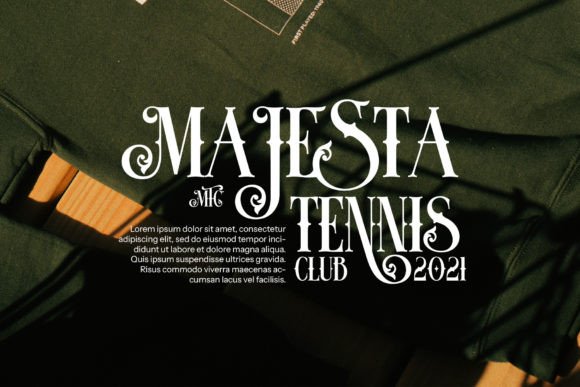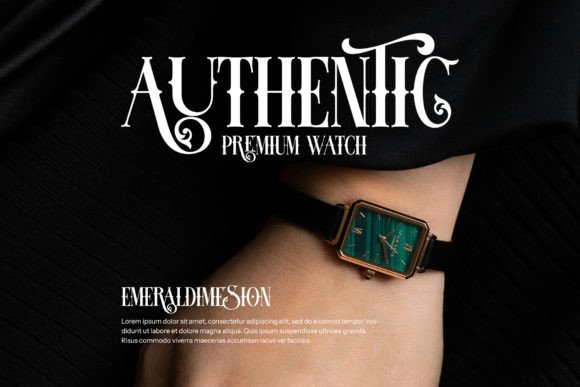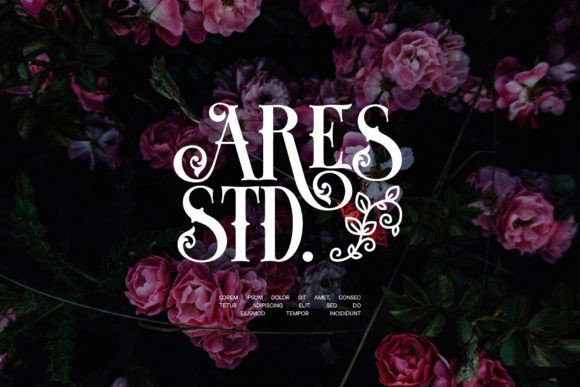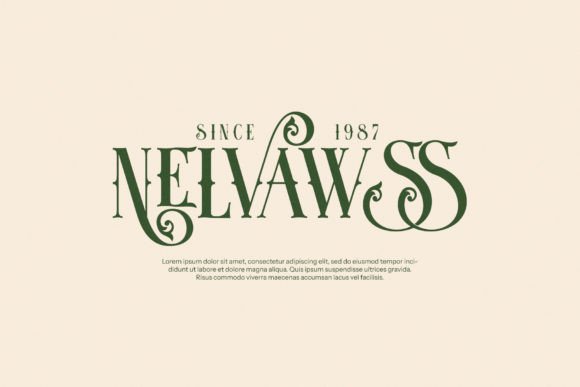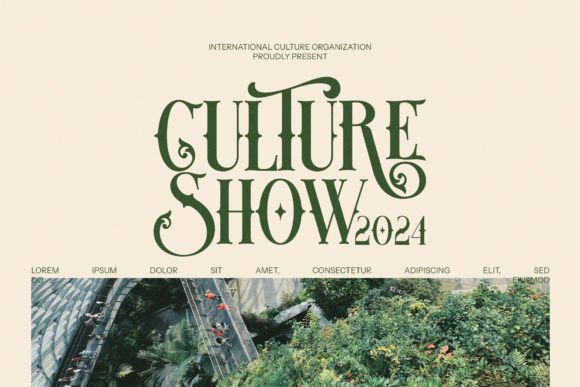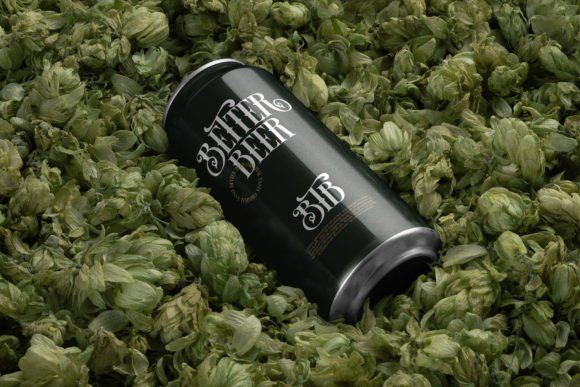
Blistao Font: A Timeless Vintage Retro Serif for Creative Projects
In the world of typography, fonts play a crucial role in conveying the tone and aesthetic of a design. For designers and crafters looking to add a touch of classic elegance and retro charm to their projects, the Blistao Font is an excellent choice. Inspired by traditional tattoo designs and old-school lettering, Blistao Tattoo Vintage Retro Serif is a stylish font that exudes a vintage vibe, perfect for logos, posters, and creative projects that demand a timeless, artistic look.
The Inspiration Behind Blistao Font
Blistao Font draws its inspiration from the rich history of tattoo art and vintage typography. The font’s design is rooted in the classic tattoo styles that have been popular for decades, characterized by bold lines, intricate details, and a distinctive retro flair. The creators of Blistao Font aimed to capture the essence of this timeless aesthetic and translate it into a digital font that can be used in various creative projects.
Key Features of Blistao Font
Blistao Tattoo Vintage Retro Serif boasts a range of features that make it an attractive choice for designers and crafters. Some of its key characteristics include:
- Bold and Decorative Letters: The font features bold, decorative letters that are perfect for making a statement. Each letter is carefully crafted to give off a vintage and retro vibe, adding a touch of elegance and sophistication to any design.
- Vintage and Retro Aesthetic: The font’s design is inspired by classic tattoo art and old-school lettering, giving it a unique and distinctive look that is sure to turn heads.
- High Versatility: Blistao Font is highly versatile and can be used in a wide range of creative projects, from logos and posters to t-shirts and other merchandise.
- Easy to Read: Despite its bold and decorative nature, Blistao Font is surprisingly easy to read, making it perfect for use in both digital and print designs.
Uses of Blistao Font
Blistao Tattoo Vintage Retro Serif is a highly versatile font that can be used in a variety of creative projects. Some of the most popular uses of the font include:
- Logo Design: The font’s bold and decorative letters make it perfect for logo design. It’s ideal for creating unique and memorable logos that stand out from the crowd.
- Poster Design: Blistao Font is well-suited for poster design, particularly for those that require a bold and eye-catching headline.
- T-Shirt Design: The font’s vintage and retro aesthetic makes it perfect for t-shirt design. It’s ideal for creating unique and stylish designs that appeal to those who love classic tattoo art.
- Branding and Packaging: Blistao Font can also be used in branding and packaging design, particularly for those that require a bold and distinctive look.
Why Choose Blistao Font?
There are many fonts available that offer a vintage and retro aesthetic, but Blistao Tattoo Vintage Retro Serif stands out from the crowd. Here are some reasons why designers and crafters should choose Blistao Font:
- Unique and Distinctive Design: Blistao Font offers a unique and distinctive design that is sure to turn heads.
- High Quality: The font is of high quality, with carefully crafted letters that are perfect for use in both digital and print designs.
In conclusion, Blistao Tattoo Vintage Retro Serif is a stylish font that is perfect for designers and crafters looking to add a touch of classic elegance and retro charm to their projects. With its bold and decorative letters, vintage and retro aesthetic, and high versatility, Blistao Font is an excellent choice for a wide range of creative projects. Whether you’re designing a logo, poster, or t-shirt, Blistao Font is sure to give your design a timeless, artistic look that stands out from the crowd.